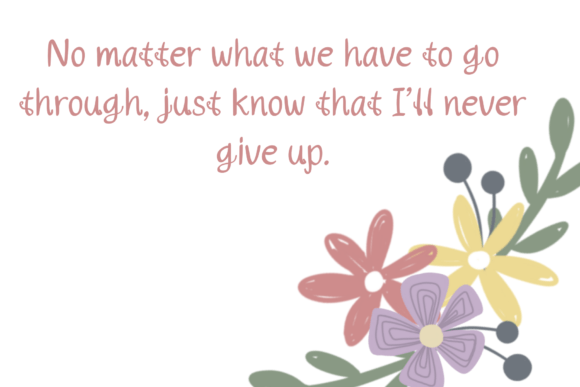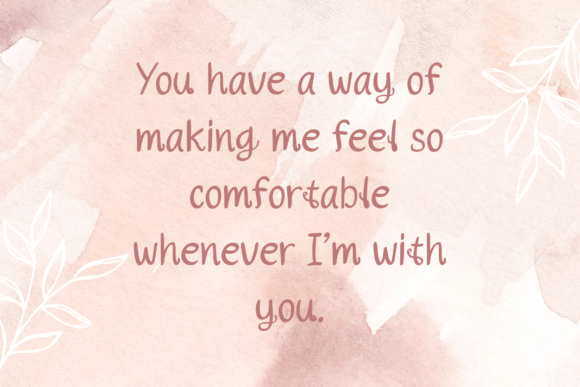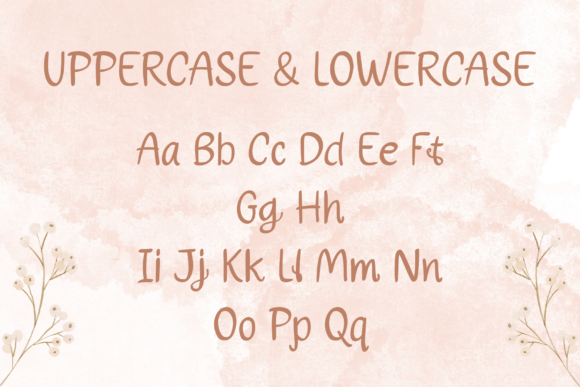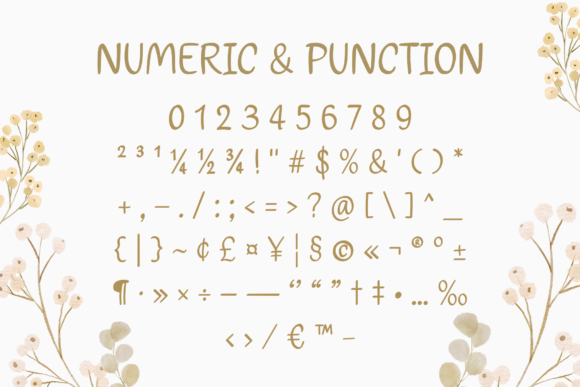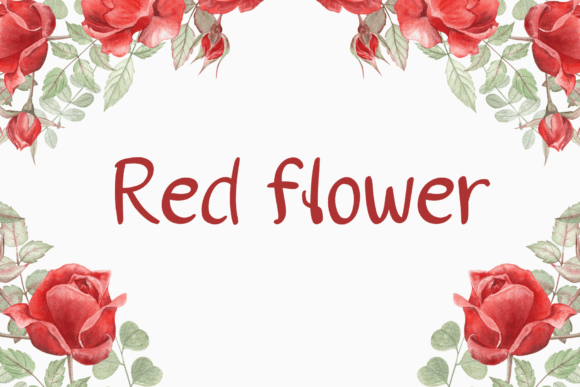
Introduction to Red Flower Font
Red Flower is the perfect addition to your design projects.
| ๐ค Author | MyFontsShop |
This beautiful script font features elegant, flowing lines and delicate floral details that will add a touch of sophistication to any project Whether youโre designing invitations, packaging, or branding materials, Red Flower is sure to make a statement.
Key Features of Red Flower Font
Why Choose Red Flower Font?
Red Flower Font offers exceptional quality and versatility, making it a valuable addition to your design toolkit. Whether you’re creating for personal projects or commercial use, Red Flower Font delivers professional results.